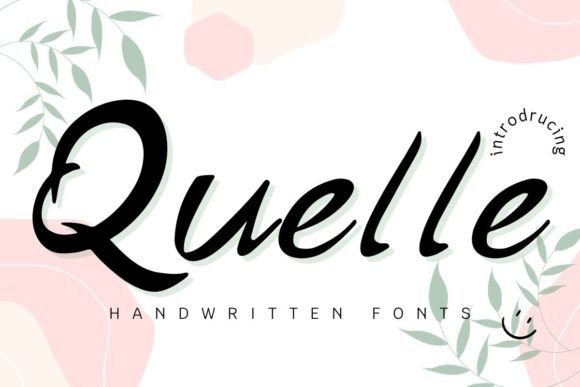
Behold, Quelle Font - a stunning script font that carries the essence of sophistication and allure. Its enchanting curves and meticulous craftsmanship will leave you spellbound. Picture your designs adorned with the grace of Quelle, creating an aura of elegance that speaks volumes. Unleash your creativity and let Quelle infuse your work with a timeless beauty that captivates all who lay eyes upon it.
Immerse yourself in the world of typography with Quelle Font and discover a world of possibilities. This meticulously crafted script font is more than just a collection of letters; it's an art form that elevates your designs to new heights of sophistication. With Quelle, you have the power to transform ordinary words into visually captivating masterpieces, captivating your audience and leaving them in awe of your artistic prowess.
Quelle Font is more than just a font; it's an expression of your unique style and personality. Whether you're creating logos, invitations, branding materials, or digital content, Quelle effortlessly adds a touch of timeless charm and individuality to every project. Its versatility knows no bounds, making it the perfect choice for a wide range of design endeavors.
Experience the magic of Quelle Font today and witness the transformation of your creative visions into stunning realities. Let your imagination soar as Quelle carries your words and designs to new heights of elegance and refinement. Embrace the beauty of typography and make a lasting impression with Quelle Font.